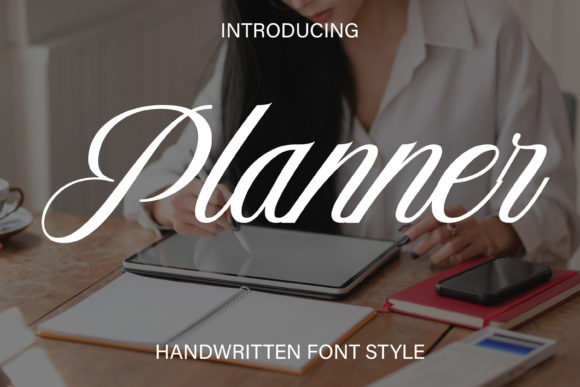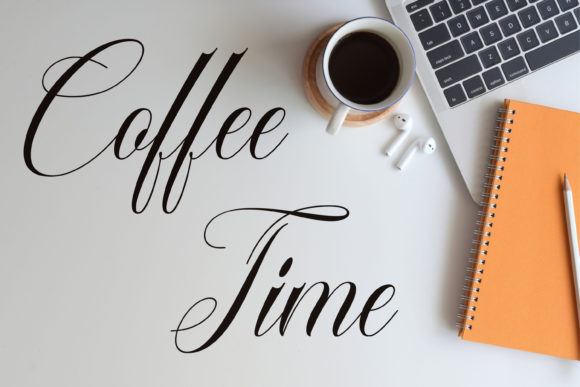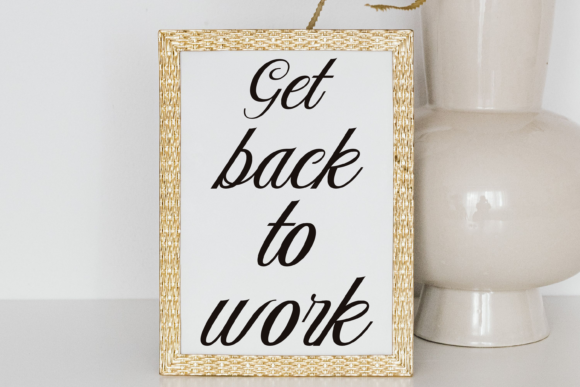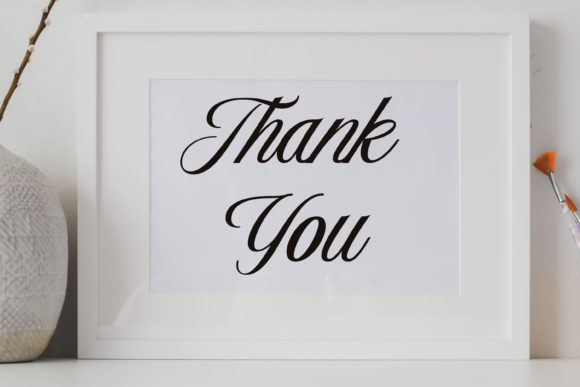
Planner Font
About Planner Font
Planner is a stylish handwritten font that will make your work stand out through its elegant and curvy lines. It is perfect for product packaging, branding project, magazine covers, social media, wedding, or just used to express words above the background.